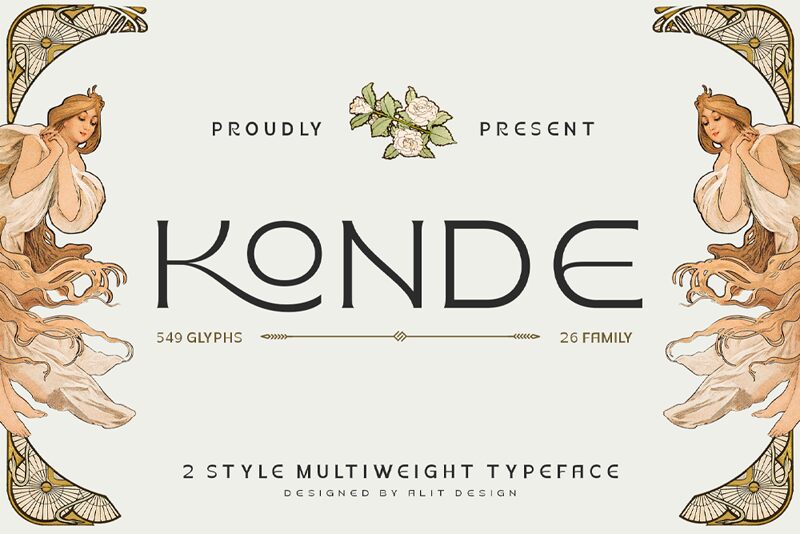
Konde Light
Konde Light, designed by Alit Design, is a stunning semi-light font that exudes elegance and sophistication. Its expanded width gives it a unique and eye-catching appearance that makes it perfect for a variety of projects. Whether you're designing professional documents, creating beautiful invitations, or updating your website's typography, Konde Light is the ideal choice. Its modern yet timeless style makes it suitable for both contemporary and classic designs alike. With its clean lines and legible lettering, Konde Light is sure to elevate any project to the next level. So why wait? Try Konde Light today and watch your designs come to life!